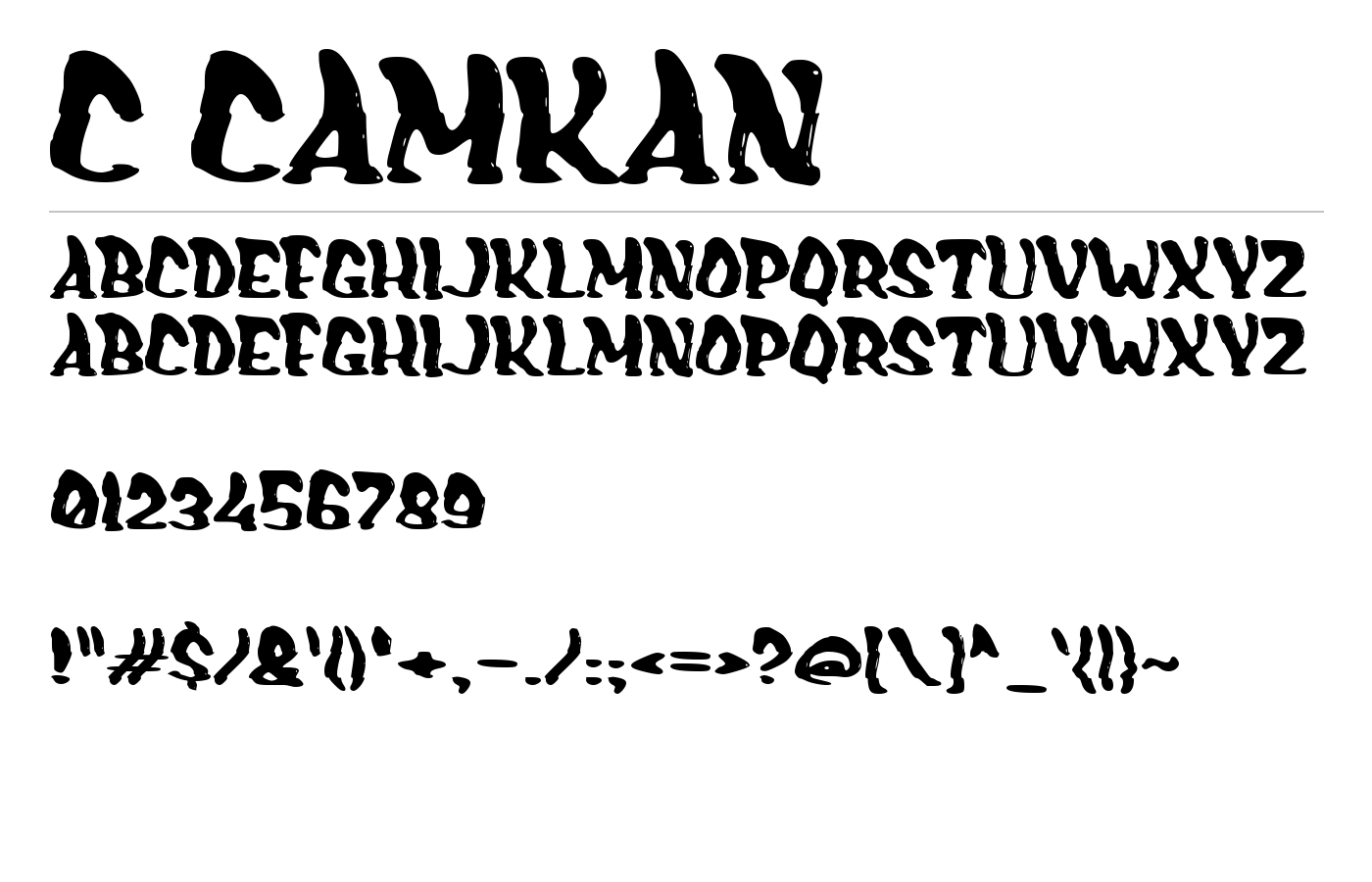
Camkan is a bold, casual display font with a hand-drawn, slightly rough texture that gives it an organic and playful feel. Its irregular shapes and thick strokes make it perfect for eye-catching headlines, posters, or creative branding that seeks a lively and informal vibe. This font works best where personality and uniqueness are key, adding a spirited touch to any design.
c Camkan Font
About c Camkan Font